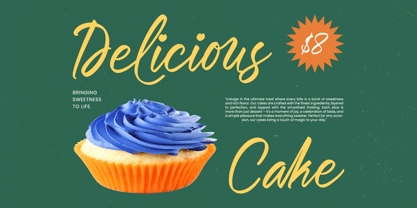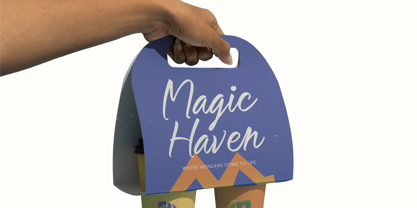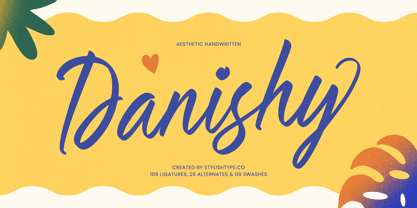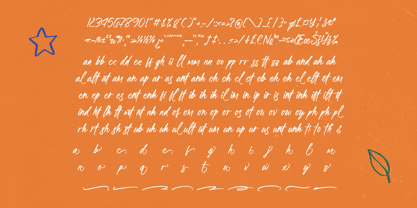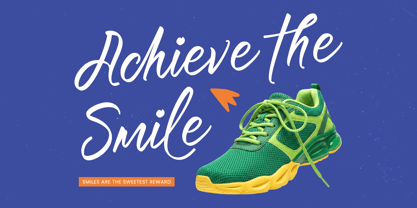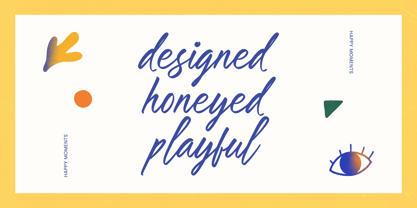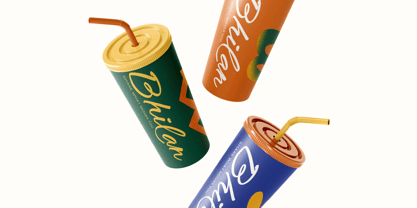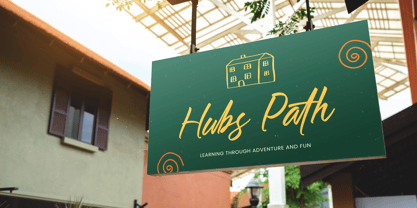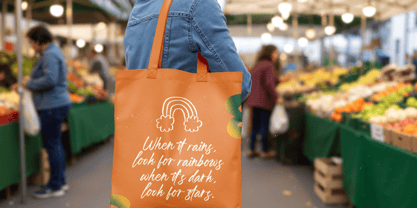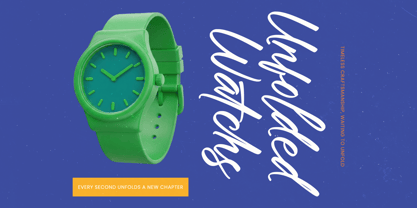
Danishy
Die Schriftfamilie Danishy wurde von Heru Utama Putra entworfen und von Stylishtype Studio veröffentlicht. Danishy enthält 2 Stile und Familienpaketoptionen. Mehr über diese Familie
Danishy is a clean, aesthetic handwritten font crafted for cheerful branding, modern packaging, lifestyle visuals, and social-media creatives that need a soft yet confident handwritten touch. Its smooth curves, friendly strokes, and warm personality make every word feel inviting, while the 109 ligatures, 26 stylistic alternates, and 9 swashes give you plenty of expressive customization. Perfect for beauty products, wellness brands, café menus, logo designs, inspirational quotes, and playful editorial layouts—Danishy brings a bright, sunny character that instantly lifts the mood of any design.